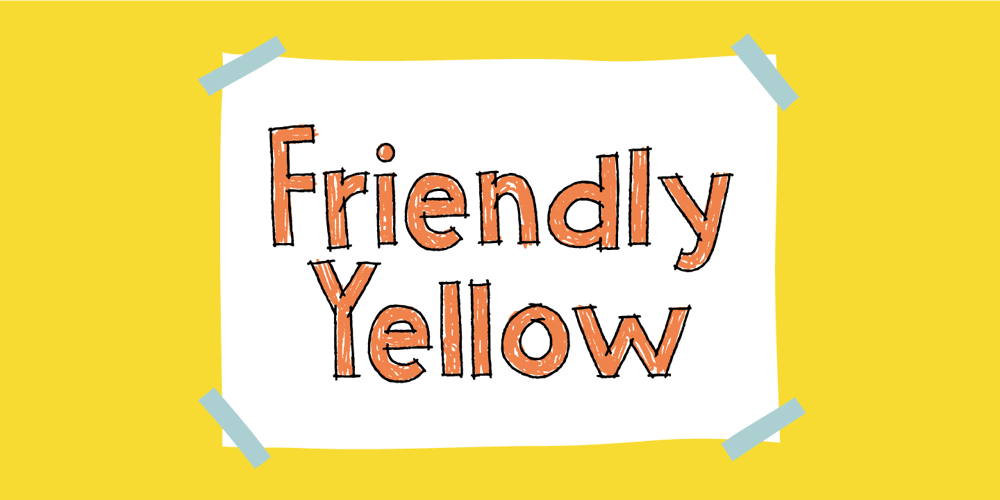
Friendly Yellow Font Family was designed by Jakob Fischer and published by PizzaDude.dk. Friendly Yellow contains 4 styles and family package options. Friendly Yellow is my sketchy/scratchy handmade sans font. I’ve made several layers for you to play around with, in order to get that feel-good handmade-sketch-font-look! I’ve also added ligature substitution for the most common double letters